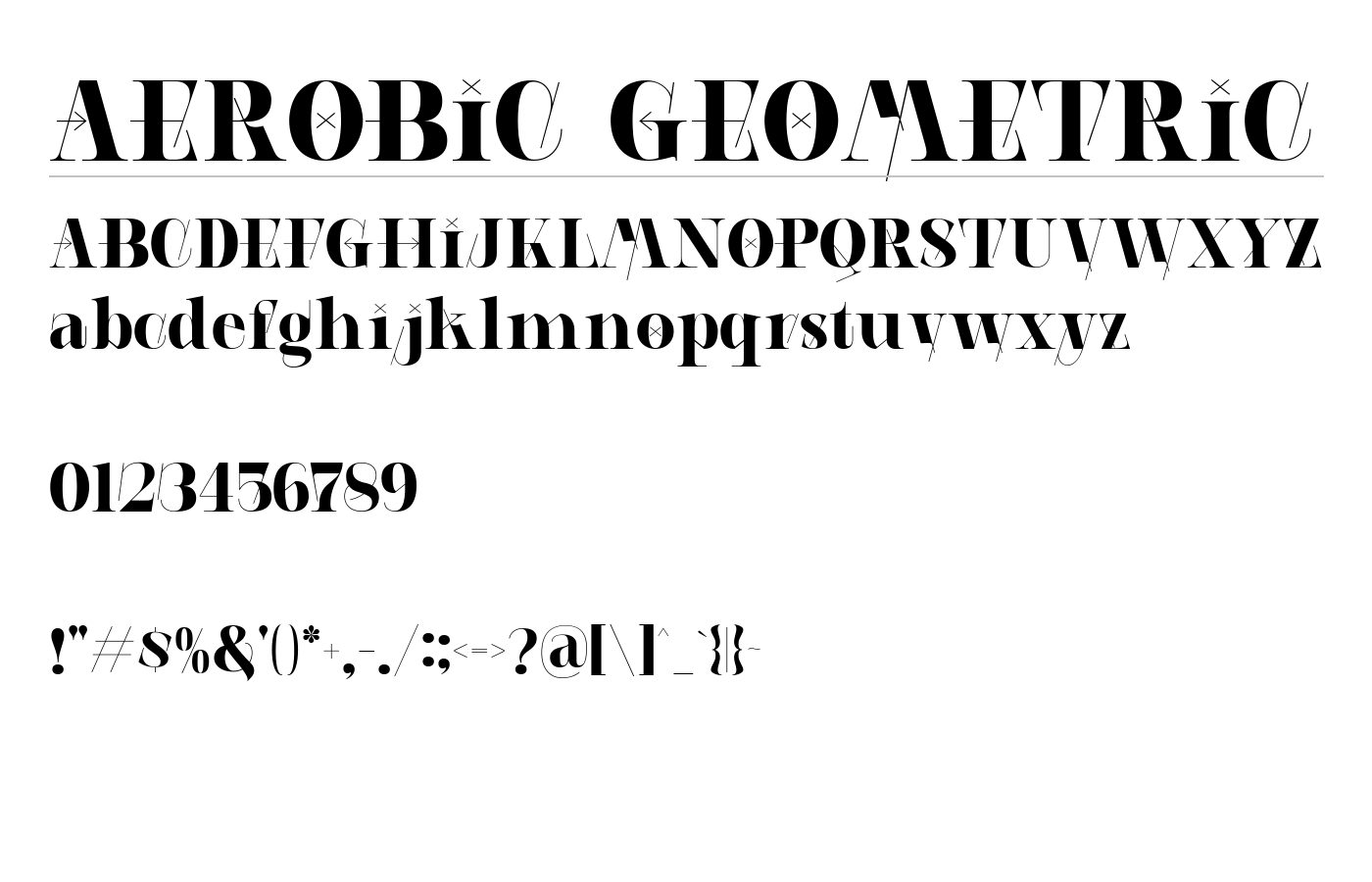
Aerobic Geometric is a bold, elegant serif font with strong Didone influences, featuring high contrast between thick and thin strokes and delicate, sharp serifs. Its dramatic, stylish letterforms combine traditional sophistication with modern geometric finesse, making it perfect for luxury branding, editorial headlines, and fashion-related designs that demand a refined yet contemporary look. This font’s distinct personality lends itself well to projects seeking a mix of classic glamour and innovative flair.
AEROBIC GEOMETRIC Font
About AEROBIC GEOMETRIC Font
| Font family | AEROBIC GEOMETRIC Font |
| Designer | 177Studio.com |